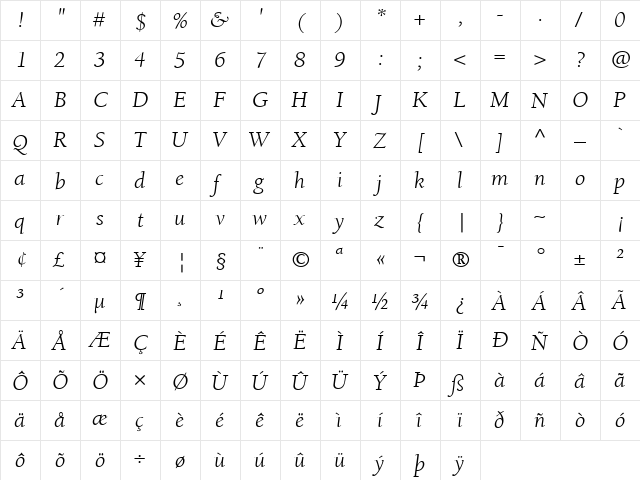
Berkeley Retrospective Book SSi Book Italic Font Preview
Design Context for Berkeley Retrospective Book SSi Typeface
Berkeley Retrospective Book SSi wears its vintage influences proudly, with letterforms that recall mid-century signage, classic packaging, and nostalgia-driven design. The dynamic lean of this cut emphasises speed and emphasis in any layout.
Ideal for diner signage, record shop branding, 70s/80s-themed projects, and heritage product labels.
Font Pairing: Combine Berkeley Retrospective Book SSi with a simple slab or neutral sans — period-accurate companions reinforce the vintage feel without competing for attention.
Pro Tip: Lean into Berkeley Retrospective Book SSi's period character by pairing it with aged paper textures, muted colour palettes, and vintage illustration styles.